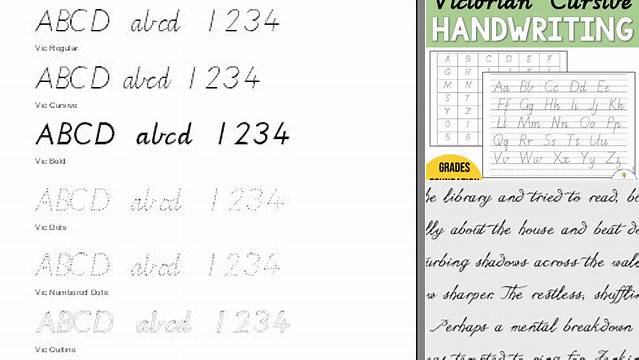
Free Victorian Cursive Font PDF: Download Now!
Hey there, font fanatics! If you're on the hunt for a touch of classic elegance in your writing, you're in the right place. We're diving deep into the world of Victorian Modern Cursive Dotted Font, and the best part? You can get a free download in PDF format. This guide will walk you through everything you need to know, from the history of this beautiful script to how to best utilize it in your projects. Get ready to add a dash of vintage charm to your designs! So, let's get started.
H2: The Allure of Victorian Cursive
Guys, there's just something inherently captivating about Victorian cursive. It's not just a font; it's a statement. It whispers of a bygone era, of elegant penmanship and handwritten letters. It's the kind of font that makes you want to slow down, savor each letter, and appreciate the artistry involved. The beauty of Victorian cursive lies in its intricate details, the sweeping curves, and the delicate flourishes. It's a style that demands attention and adds a touch of sophistication to anything it graces.
Victorian modern cursive dotted font takes this classic style and makes it even more accessible, especially in its dotted form. These dots serve as a gentle guide, helping you replicate the elegant strokes of the Victorian era with ease. The modern aspect ensures it's compatible with today's technology and design needs. Think about the possibilities! Wedding invitations, personalized stationery, elegant logos, or even just adding a touch of class to your digital documents. This font can do it all. The appeal is in its timeless quality. It's a font that doesn't just follow trends; it defines them. The resurgence in popularity of vintage aesthetics has only amplified its appeal. People are increasingly drawn to things that feel authentic and handmade, and Victorian cursive embodies both of those qualities perfectly. It's a celebration of heritage, a nod to the past, and a beautiful way to express yourself. The detailed loops and swirls are a treat to the eye, making any text look refined. Using this font, you're not just typing; you're crafting. You're taking your audience on a journey, transporting them to a time of elegance and grace.
H3: Victorian Cursive's Historical Roots
Alright, history buffs, let's take a quick trip back in time! The Victorian Modern Cursive Dotted Font isn't just a random style that popped up overnight. It's deeply rooted in the Victorian era, a time of significant cultural and artistic flourishing. During the reign of Queen Victoria, from 1837 to 1901, the world saw immense changes, including advancements in printing and, of course, the evolution of elegant handwriting styles. The Victorian era placed a high value on refined manners and aesthetics. Handwriting was considered a crucial skill, an art form even. Elaborate scripts, like Copperplate and Spencerian, were the go-to styles for formal correspondence and business documents. These styles emphasized precision, fluidity, and decorative elements. The goal was to create visually appealing text that would impress the reader and convey a sense of sophistication.
The rise of mass production and the industrial revolution brought about the need for more efficient ways to write and communicate. The Victorian era saw the development of various writing systems and the widespread use of steel-nib pens, which allowed for finer lines and more intricate details. These pens made it easier for people to master the flowing curves and elaborate flourishes characteristic of Victorian handwriting. The emphasis on beautiful handwriting led to the creation of various calligraphy schools and instructional manuals. People were eager to learn these graceful styles, and as a result, Victorian cursive became a prominent form of art and self-expression. By understanding these historical origins, you can appreciate the craftsmanship that went into this design. Knowing where something came from truly enriches your appreciation. It gives you a deeper connection to the art form and allows you to use it with more intention and respect for its heritage. Each stroke carries the weight of history and adds depth to your message. So next time you're using this Victorian modern cursive dotted font, remember you're not just writing; you're participating in a tradition that spans centuries.
H2: Understanding the Dotted Font Feature
Let's break down the magic behind the dots, shall we? The dotted feature in the Victorian Modern Cursive Dotted Font is an absolute game-changer, especially for those new to cursive. Think of the dots as a helpful guide, your personal trainer for penmanship. They provide a clear path for your pen or stylus to follow. The purpose is to ensure you create the letterforms accurately and consistently. The dots create a framework, and all you have to do is connect them, allowing you to trace the letters in a specific direction. This method is incredibly beneficial for beginners who are learning cursive or for anyone who wants to ensure their handwriting has that polished, elegant look that's so characteristic of the Victorian era. The dotted lines work to prevent the messy handwriting.
The dotted design also helps to improve muscle memory. By repeatedly tracing the letters, you train your hand and your brain to recognize and reproduce the correct forms. The more you practice, the smoother your handwriting becomes. The dotted font offers a controlled environment to practice and refine your skills. It gives you immediate feedback. When you trace the dots, you can see in real-time if you're executing the strokes correctly. If something doesn't look quite right, you can adjust your technique on the spot. The dotted feature makes it possible to create a beautiful script without spending hours. It’s an inclusive method. The dotted design isn’t exclusive to certain levels; it is a way to teach a beautiful art. It's a user-friendly tool that invites everyone, no matter their skill level, to experience the pleasure of writing with this graceful style. It's a practical and effective way to learn, practice, and master the art of Victorian cursive. Consider the digital format, which amplifies the usefulness of the dotted font.
H3: Benefits of Using a Dotted Cursive Font
So, what's the big deal about using a Victorian Modern Cursive Dotted Font? Why bother with the dots when you could just use a regular font? Well, here are some serious benefits, guys. First off, it's a huge time-saver. Let’s face it, perfecting cursive can be a time-consuming process. The dotted font gets you there faster, allowing you to create beautiful text without spending hours on practice. It's fantastic for visual learners. The dotted design provides a clear, visual representation of each letter. This makes it easier to understand the shapes and curves, and how each letter connects. It's an excellent tool for educators. If you're a teacher, this font can be a fantastic resource for teaching handwriting skills to students. The guided approach helps them develop their motor skills and recognize letter formation, and it’s a great way to start off the fundamentals.
Also, it is a great tool for digital designs. The dotted font is often created in a digital format, making it super easy to use in various design programs. You can use it for anything from creating social media graphics to designing elegant invitations. It offers consistency. When you use the dotted font, you're guaranteed to have consistent letterforms throughout your text. This gives your design a professional look. It promotes creativity. The font encourages you to experiment and personalize your writing. You can use it to create unique designs and add a touch of personality to your work. Overall, it promotes confidence. When you see your handwriting improving, it's a huge confidence booster. The dotted font is a powerful tool to unleash your creativity, and it’s an invitation to explore the world of elegant writing.